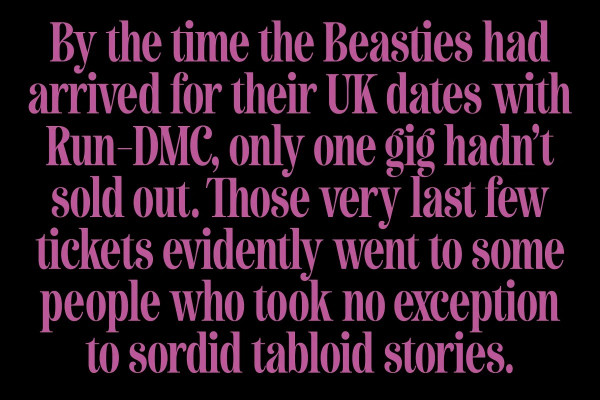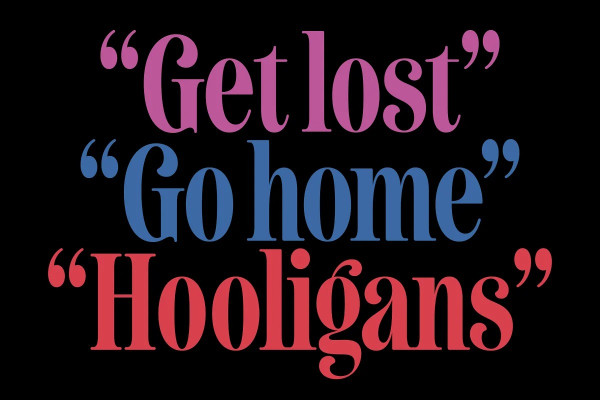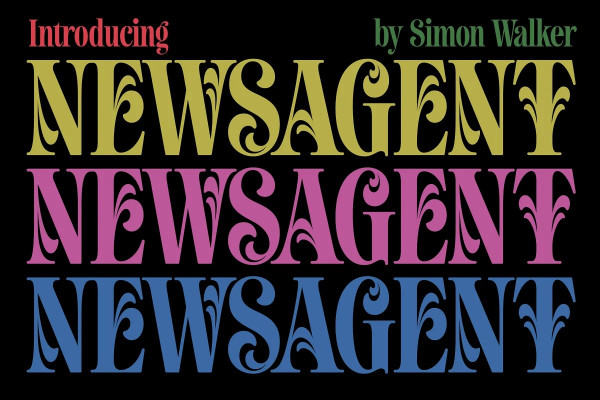
Newsagent Font
Newsagent Font is a bold, condensed serif font in a robust and formal style with some soft, modern flourishes and a set of super-decorative swash caps meant to be used together and kerned TIGHT.